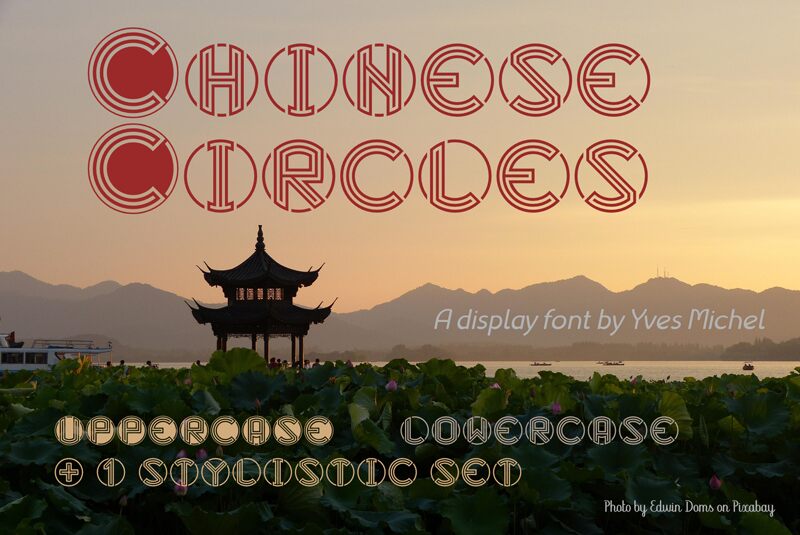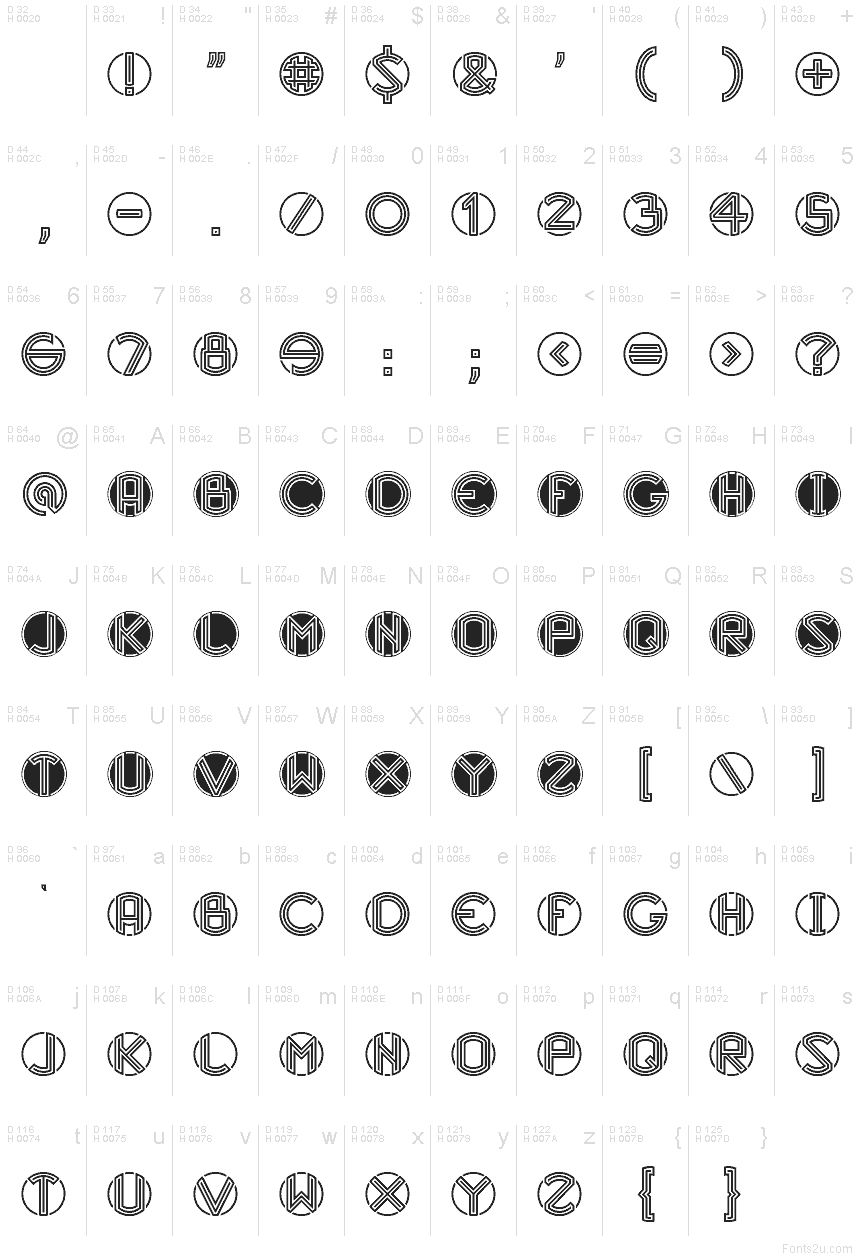
Chinese Circles Regular
Chinese Circles font by Yves Michel is a free decorative display font. Each glyph sits within a crisp circular frame, forming a chain of concentric rings and clever cutouts that read instantly while creating a hypnotic pattern. A handy stylistic set flips numbers, symbols, and punctuation into solid “black” versions when you want extra punch or contrast.
Using Chinese Circles, headlines lock into a rhythmic grid that shines on posters, event branding, gallery flyers, retail signage, album art, and motion titles. The modular geometry keeps spacing tidy at large sizes; add a touch of tracking for air. Pair this free font with a quiet, neutral sans to let the circular forms steal the spotlight.